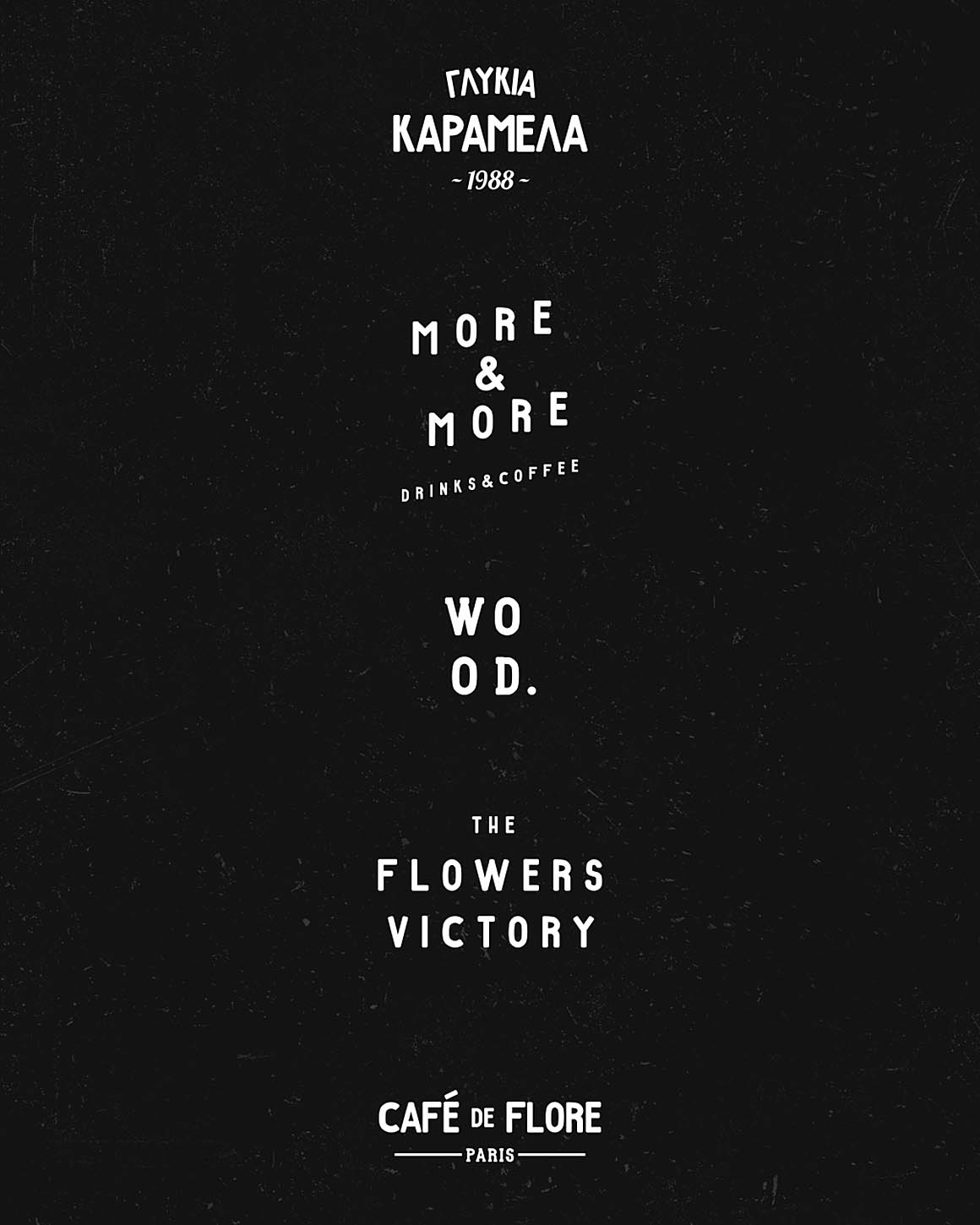
Awasome Retro Sans Serif Fonts Ideas
Awasome Retro Sans Serif Fonts Ideas. These retro fonts are great for vintage style posters or other pieces of work to get a familiar yet old age look. If you’re looking for a retro and unique font (one which will bring all sorts of happiness to any project) this likevibe font is just for you.
Use a faded color scheme to get a real retro feel to mimic a design. Qetalon retro serif font, created by storytype, a serif. If you’re looking for a retro and unique font (one which will bring all sorts of happiness to any project) this likevibe font is just for you.
If You’re Looking For A Retro And Unique Font (One Which Will Bring All Sorts Of Happiness To Any Project) This Likevibe Font Is Just For You.
Kagumi is a sophisticated, charming sans serif font with a japanese vibe. This font would be perfect for designs that require a unique and. Qetalon retro serif font, created by storytype, a serif.
Abang typeface font sans serif vattican brush font script script fonts brush + script. This is a quirky font. Collection of fonts for sans serif.
The Most Common Examples Are Arial And Helvetica.
Licensed for personal and commercial use. Sans fonts can be used for very readable long. The script font is dynamic and lends movement to the sans serif.
Retro Greathe Font Includes Full Set Of Uppercase And Lowercase Basic Characters, Numerals And Punctuation.
It’s a very versatile font that works great in large and small sizes. Specially designed for luxury, elegant, feminine projects, this font is. Click here for details 1252 retro fonts preview:
Lollapalooza Cool Sans Serif Fonts Is A Fabulous Font Trio Of Small, Medium, And Large Versions That Can Be Combined In Various Ways To Form Unique Text.